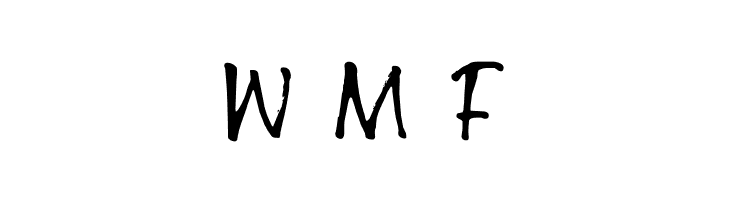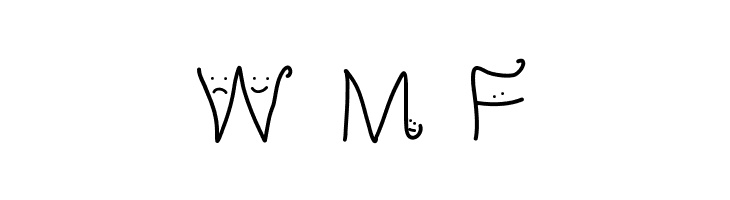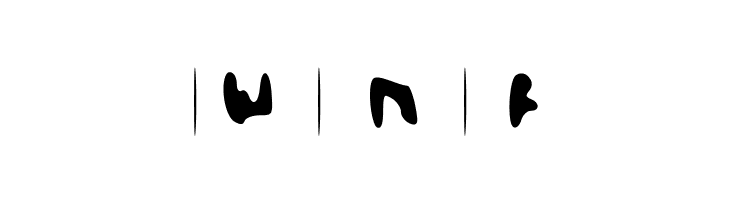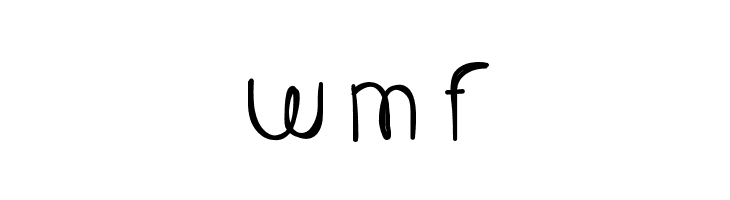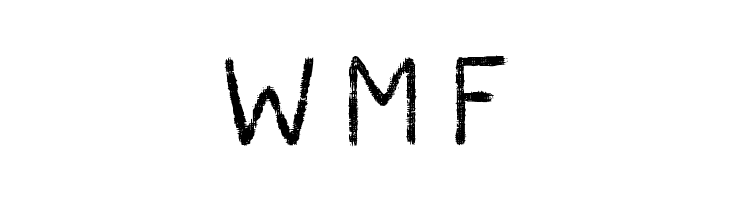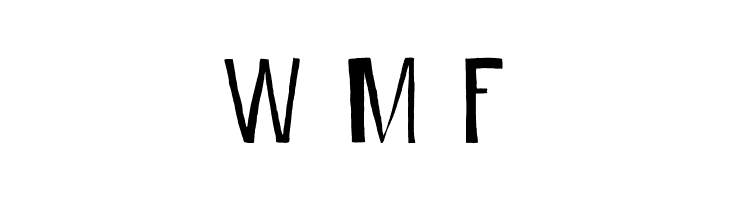
A textured, pencil-shaded font with a hand-drawn, artistic style.
A dynamic, handwritten font with sharp, angular strokes and a whimsical style.
A bold, expressive font with a hand-drawn, dynamic style.
A playful, artistic handwritten font with dynamic strokes and whimsical flourishes.
A bold, distressed font with a hand-drawn, graffiti-like style.
A playful, handwritten-style font with a condensed and quirky appearance.
A playful, handwritten font with a whimsical and relaxed style.
A bold, distressed font with a punk-inspired, rebellious aesthetic.
A playful, hand-drawn font with a sketch-like, textured appearance.
A playful, hand-drawn font with an artistic and whimsical style.
A bold, scratchy, and playful font with a hand-drawn, distressed appearance.
A bold, hand-drawn font with a textured, scribble-like pattern.
A playful, hand-drawn font with quirky, irregular shapes and a lively style.
A playful, hand-drawn font with irregular strokes and artistic flair.
A playful, hand-drawn font with a whimsical and informal style.
A tall, narrow font with a modern and artistic style.
A playful, hand-drawn font with bold, sketch-like outlines.
A bold, handwritten font with a playful and chaotic style.
A dynamic, expressive handwritten font with fluid, interconnected strokes.
A bold, textured font with a distressed, gritty appearance.
A tall, narrow, and playful font with a hand-drawn, bold appearance.
A textured, hand-drawn font with a bold, artistic style.
A playful, bold font with a unique split design, perfect for creative projects.
A playful, handwritten font with a casual and dynamic style.
A hand-drawn, playful font with irregular strokes and a whimsical character.
A bold, hand-drawn font with a rugged and artistic style.
A hand-drawn, whimsical font with tall, narrow characters and uneven strokes.